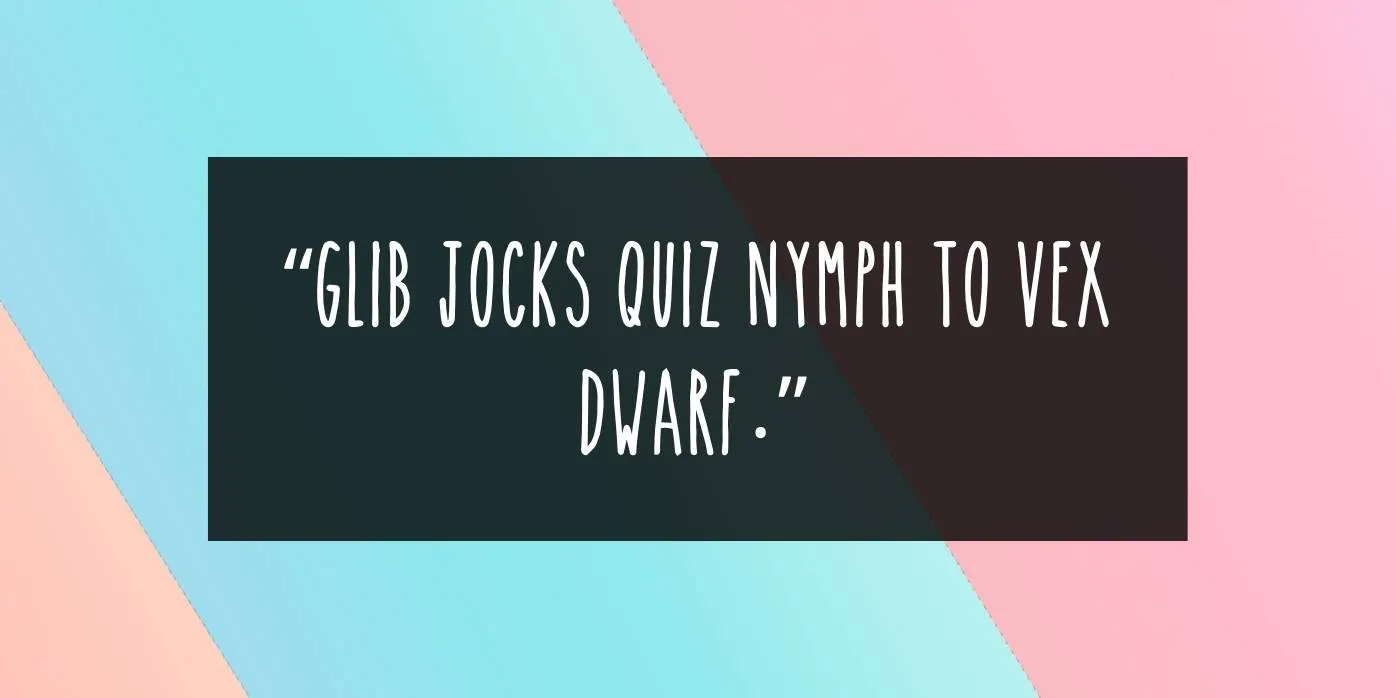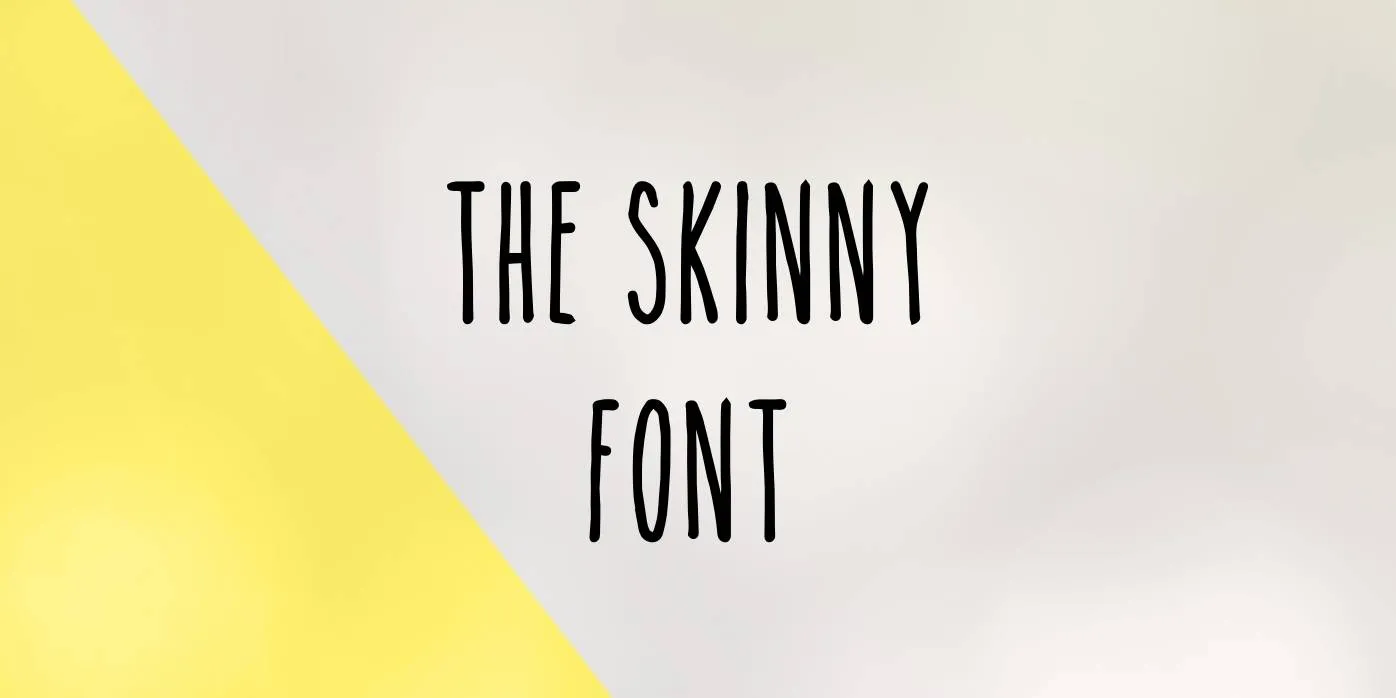
The Skinny Font
In this post, we discuss a tremendous and stunning typeface known as The Skinny Font. This typeface belongs to the handwritten font family. This font was created by Jusebox. This typeface has neat and clean textures and is well specified for the CSS.
The designer has given it a unique touch by making the strokes extremely thin. As a result, The Skinny Font looks very elegant and classy. Furthermore, the letters are well-balanced which makes this typeface perfect for both headlines and body text. You can use the death note font which has the same style and characters as this one.
If you’re looking for a handwritten font that exudes class and sophistication, The Skinny Font is definitely the right choice for all of your designs. This typeface is also an advanced facility of its generator tool.